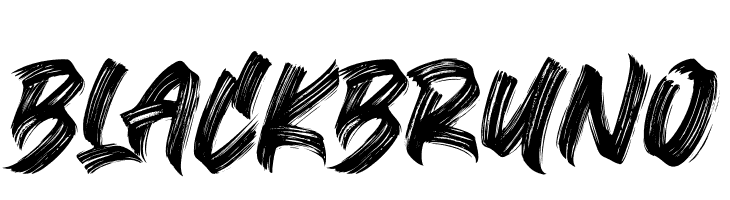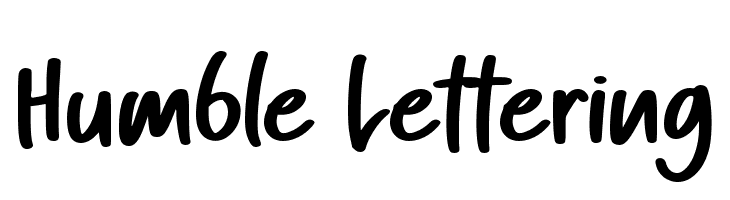
A bold, rounded font with a vintage yet modern appeal.
( Jaime Rangel Castro )
A playful, bold font with a mix of handwritten and display styles.
A decorative design using heart shapes to form the letter 'A'.
( M. Ilham Maulana )
A bold, geometric font with a modern and slightly retro aesthetic.
( Fonts by Juha Korhonen )
Bold, distressed, hand-drawn font.
A bold, decorative font with intricate line work and circular motifs.
A playful and energetic script font with bold, flowing strokes and a handwritten quality.
A whimsical and decorative font with flowing, interconnected strokes.
( David Luscombe - www.davidluscombe.com/ )
A bold, geometric font with a futuristic and digital aesthetic.